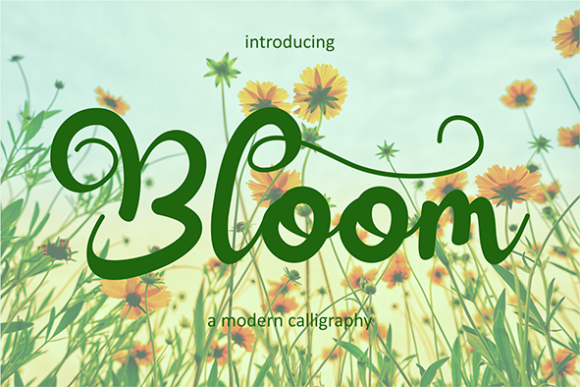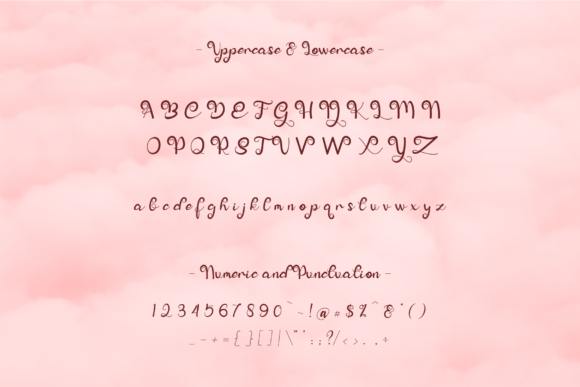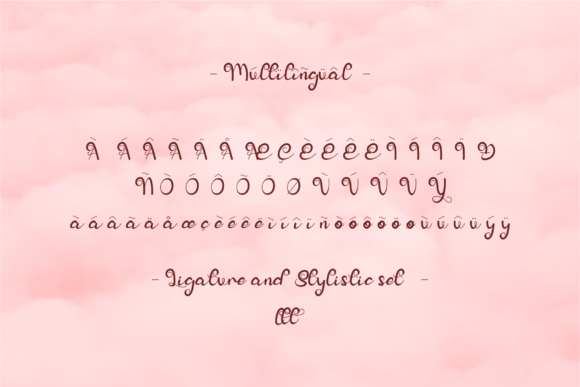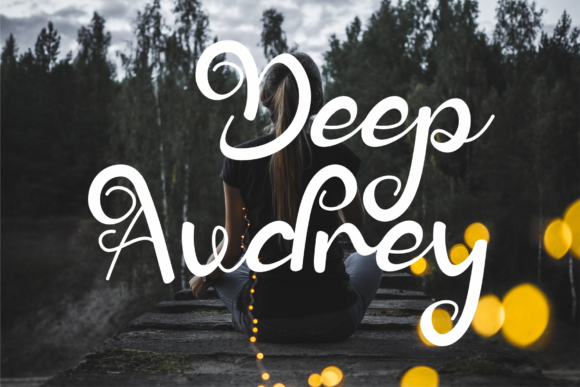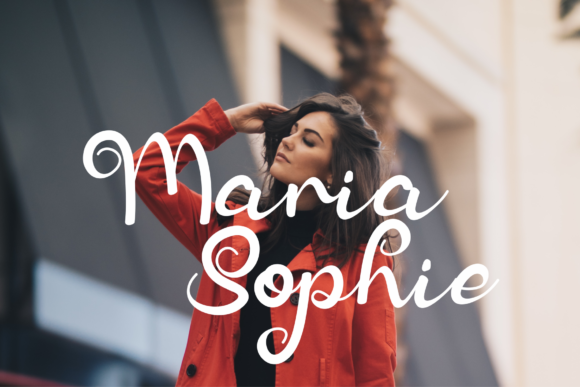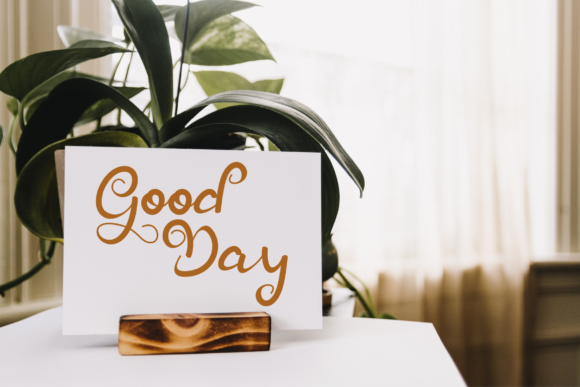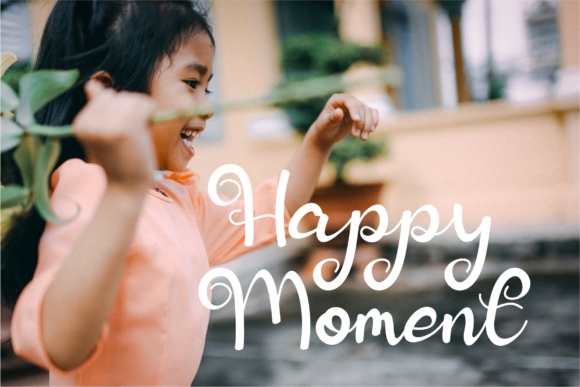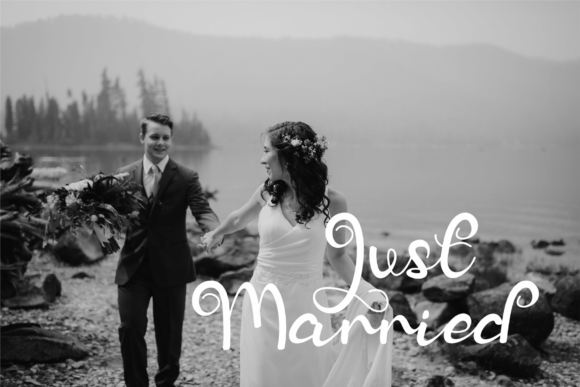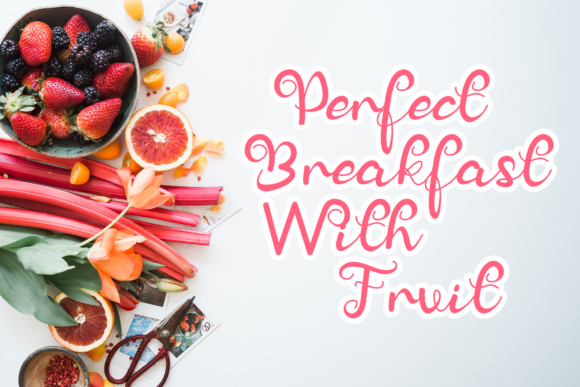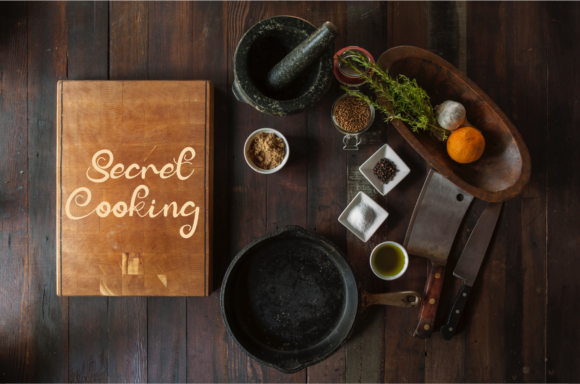
Bloom Font
About Bloom Font
Bloom is a beautiful and modern bold script font. It looks beautiful on wedding invitations, thank you cards, quotes, greeting cards,
logos, business cards and more.